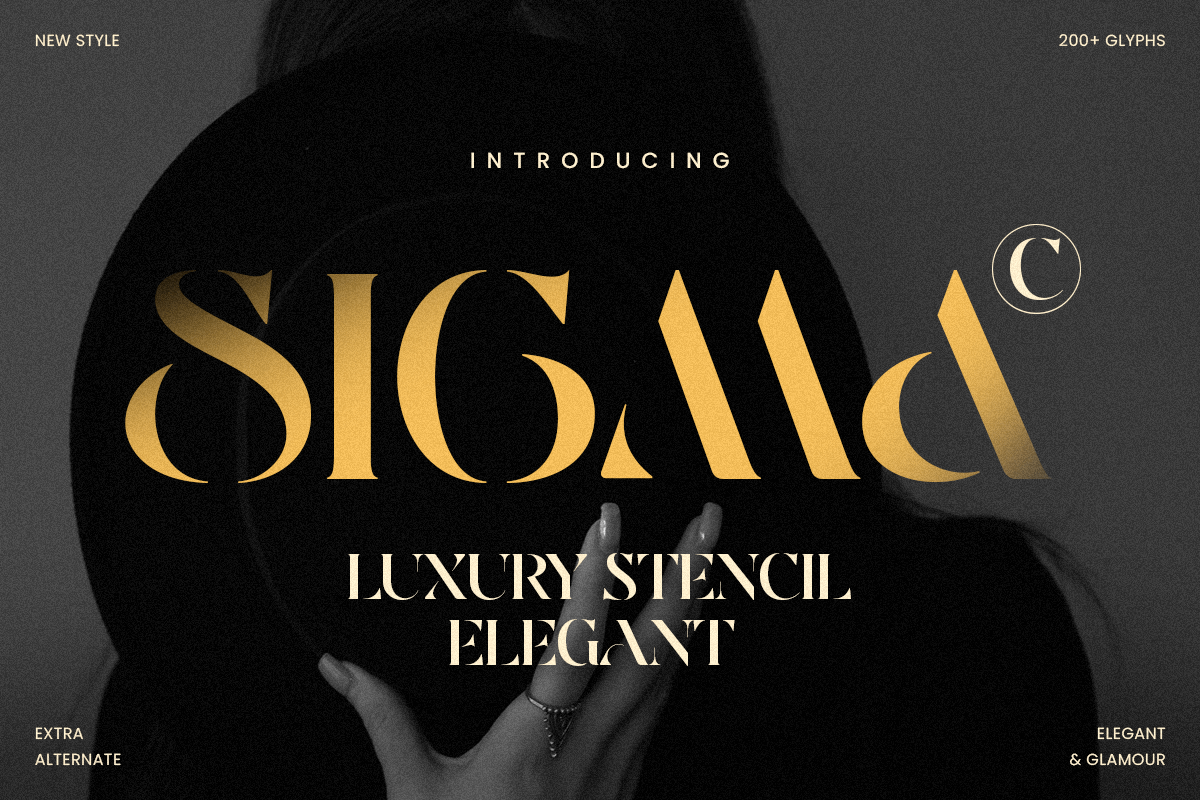
Sigma
-Luxury Stencil Elegant Font
Sigma - Luxury Stencil Elegant Font
SIGMA is a luxury stencil elegant font crafted to blend refined sophistication with a distinctive cut-out attitude. Featuring clean proportions and stylish stencil breaks, this typeface delivers a premium tone that feels bold, exclusive, and instantly recognizable—perfect for high-end branding with a modern edge.
Designed for statement typography, SIGMA works beautifully across logos, wordmarks, premium packaging, labels, website headers, posters, signage, presentations, and upscale marketing visuals. The stencil detailing adds a crafted, editorial flavor that elevates titles and brand statements while keeping the overall look clean and readable across digital and print layouts.
Whether you’re building a luxury identity with an industrial twist, creating premium product visuals, or designing modern campaigns that need elegance with impact, SIGMA provides a powerful stencil foundation that makes your typography feel polished, confident, and unforgettable.
Inspiration Behind SIGMA
SIGMA is inspired by contemporary luxury identity systems and modern stencil typography—where precision cuts meet elegant structure. The design focuses on balanced spacing, refined rhythm, and premium minimalism to support high-end logos and sophisticated display typography with a bold signature style.
SIGMA Font Features:
• Luxury stencil letterforms with elegant, refined character
• Distinctive cut details for premium logo and wordmark design
• Clean structure with strong readability for headlines and branding
• Luxury logos, wordmarks, and premium brand identity systems
• High-end packaging, labels, and modern product branding
• Posters, headlines, campaigns, and bold promotional layouts
• Signage, presentations, website headers, and digital banners
• Modern editorials and premium marketing visuals with an edgy twist
Give your branding a premium edge with SIGMA—an elegant luxury stencil font made for bold, high-end identity design. ✨